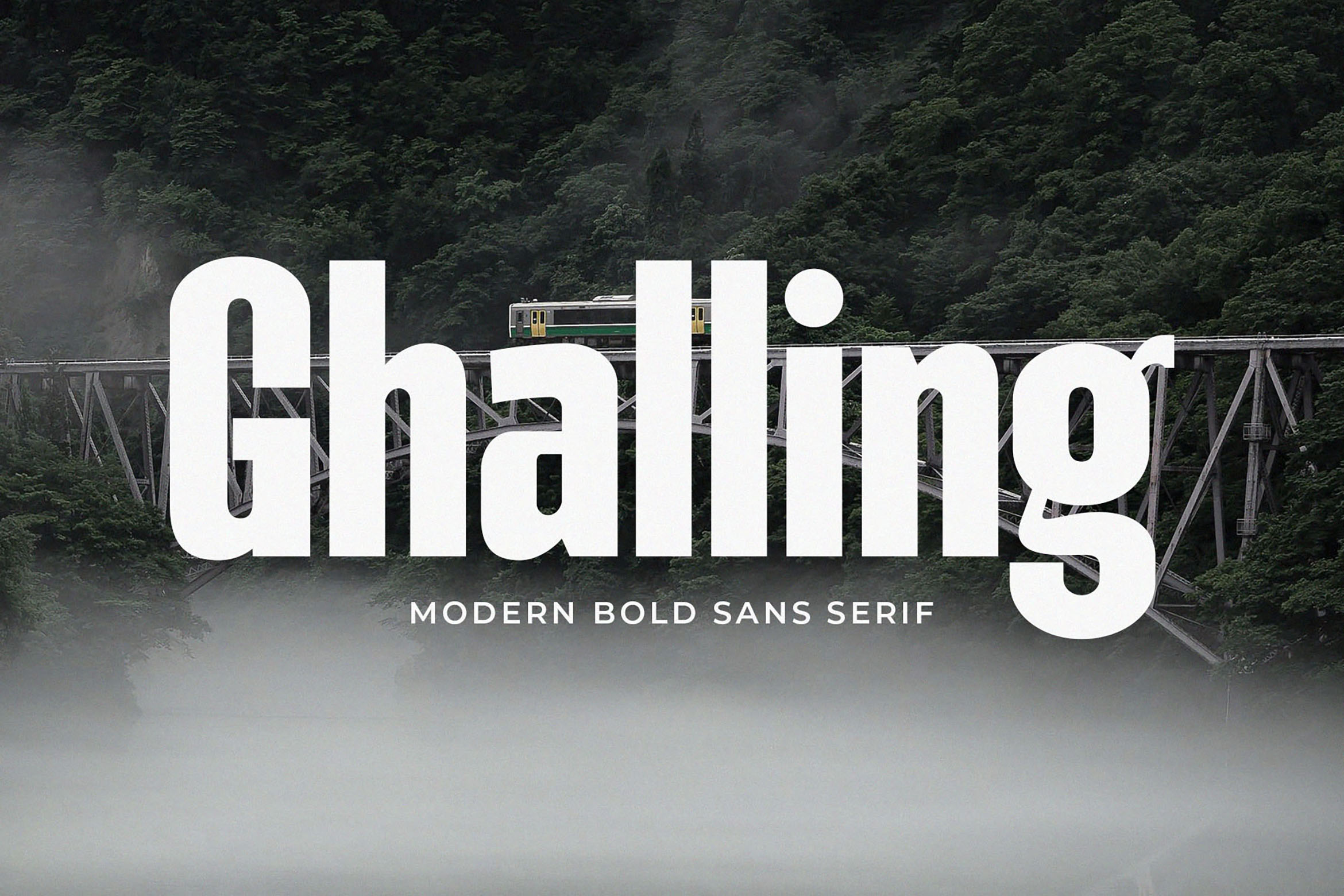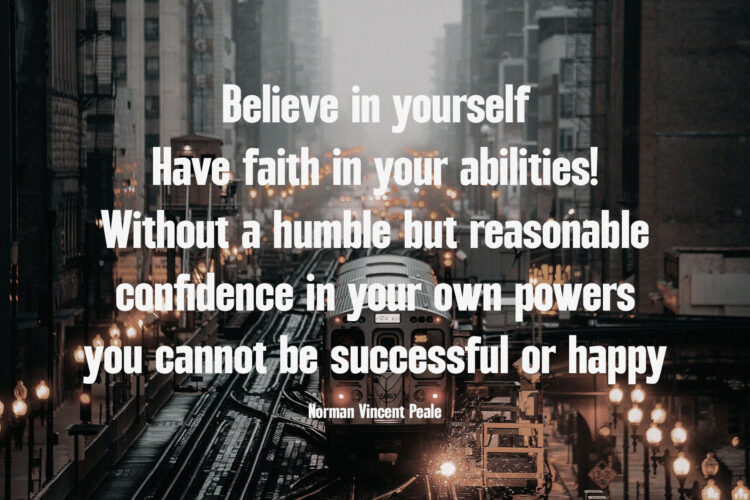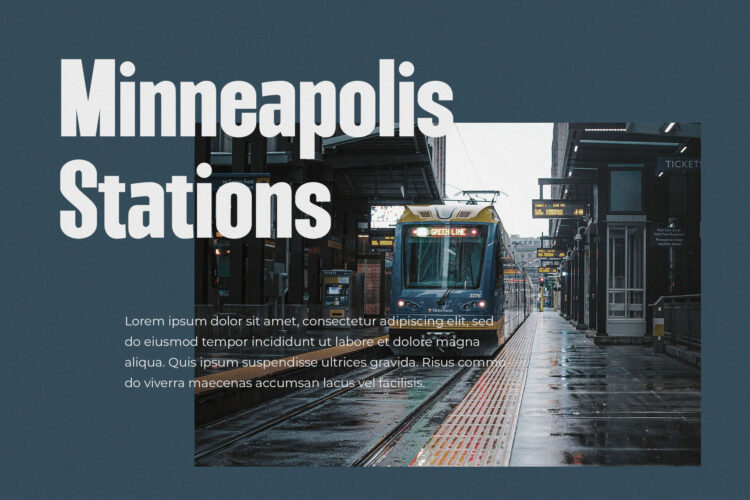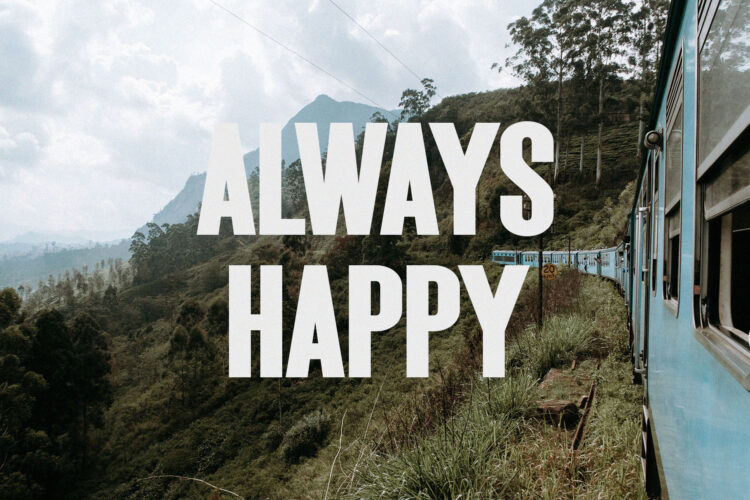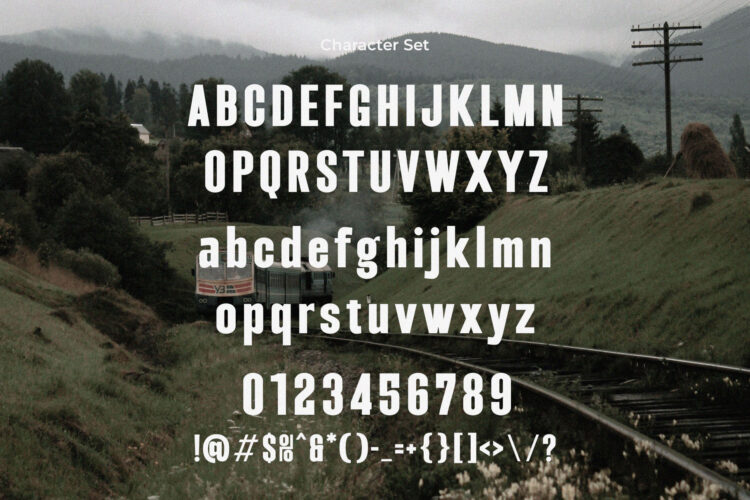
Introducing our new Ghalling, modern sans serif font with elegant style this is perfect for branding, logos, invitation, magazines, product packaging and more.
Ghalling – Modern Bold Sans Serif